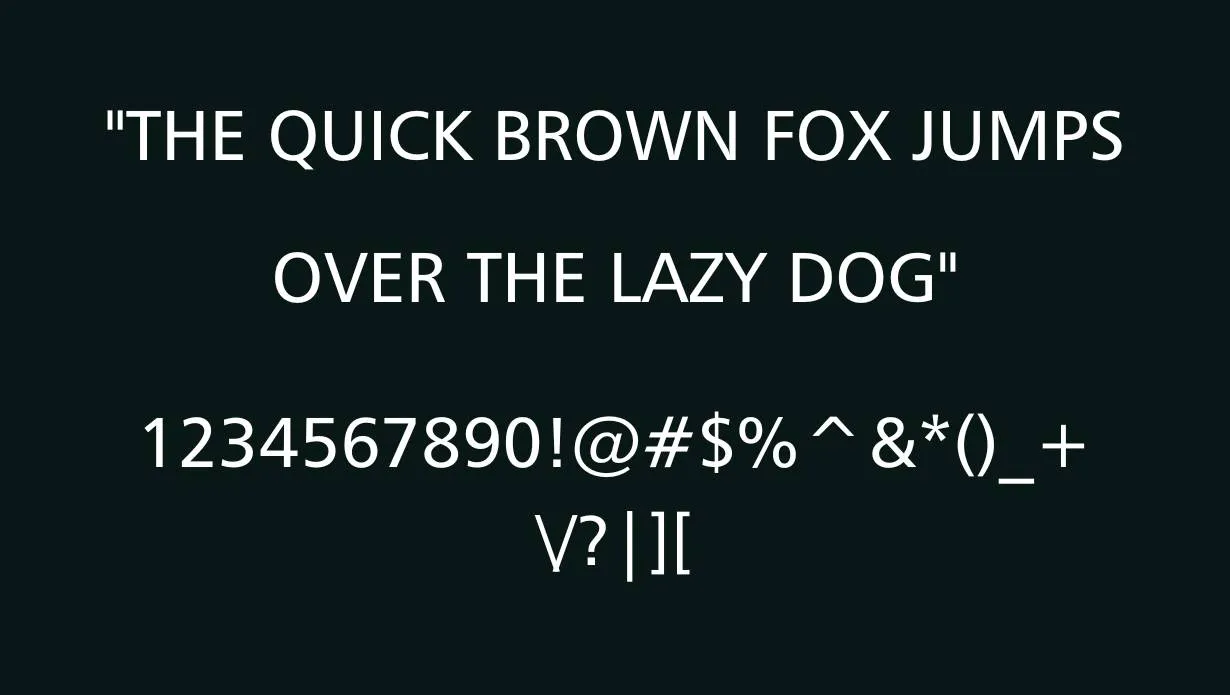
Humanist 777 Font is a classic and elegant typeface known for its timeless appeal in design. With its well-balanced letterforms and refined details, it’s often used in upscale branding, formal invitations, and editorial design.
The font’s clarity and sophistication make it a popular choice for projects that aim to convey a sense of tradition and prestige.
| Name | Humanist 777 Font |
| Designer | Adrian Frutiger |